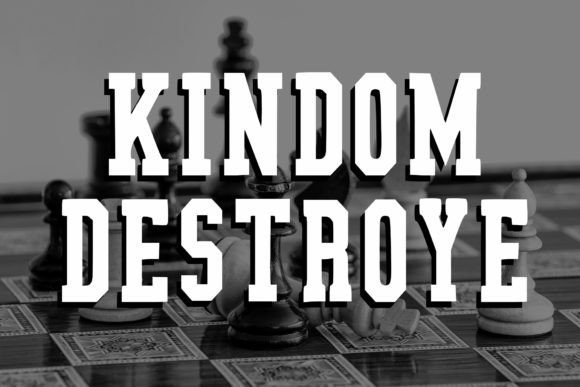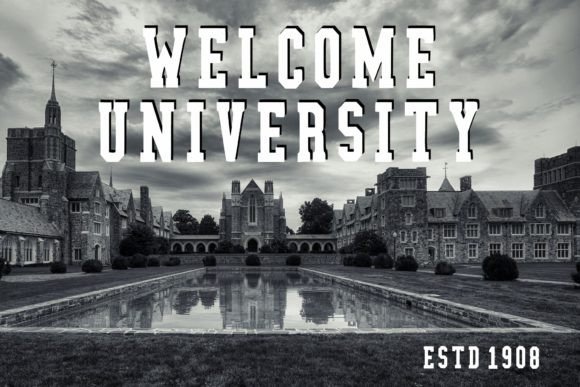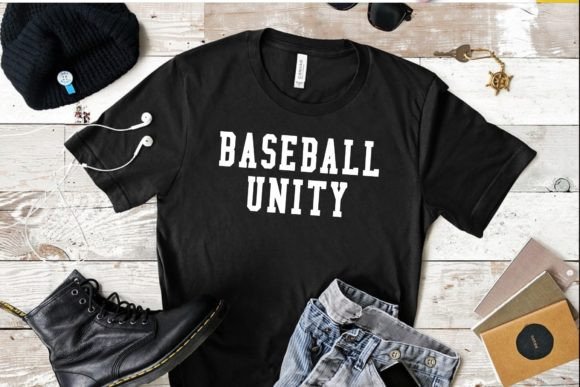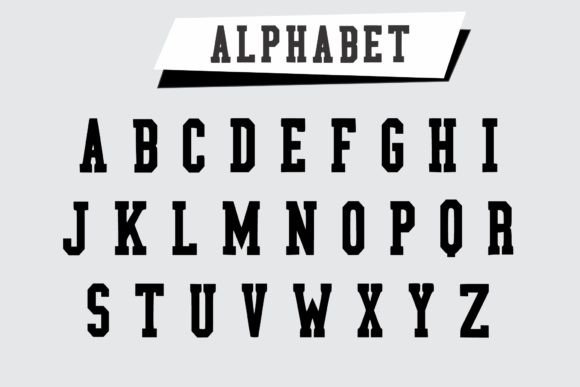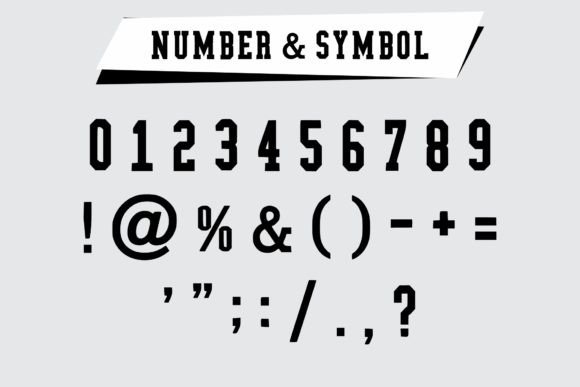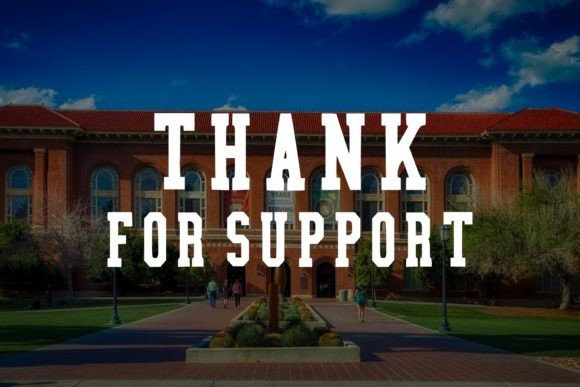
Introduction to College Project Font
College Project is an authentic sports classic display font, inspired by college typography.
This bold and dynamic font captures the energy and excitement of sports It features a strong and commanding look, with thick lines and sharp edges that convey power and athleticism.